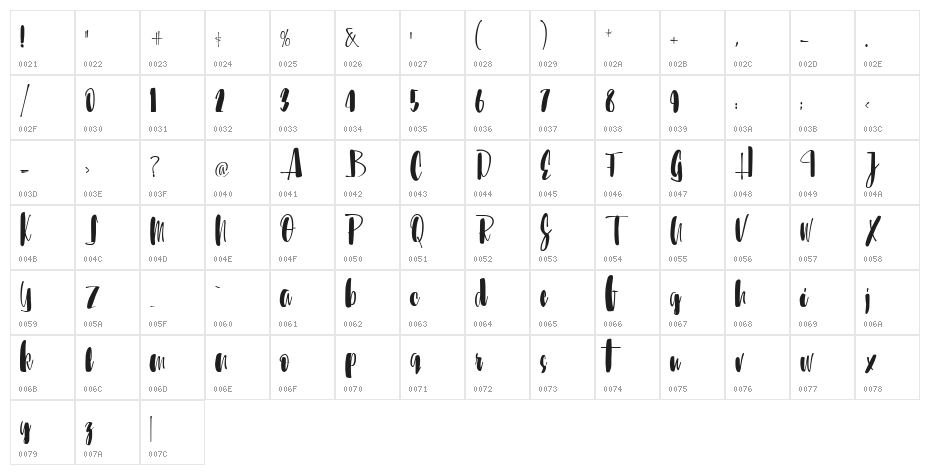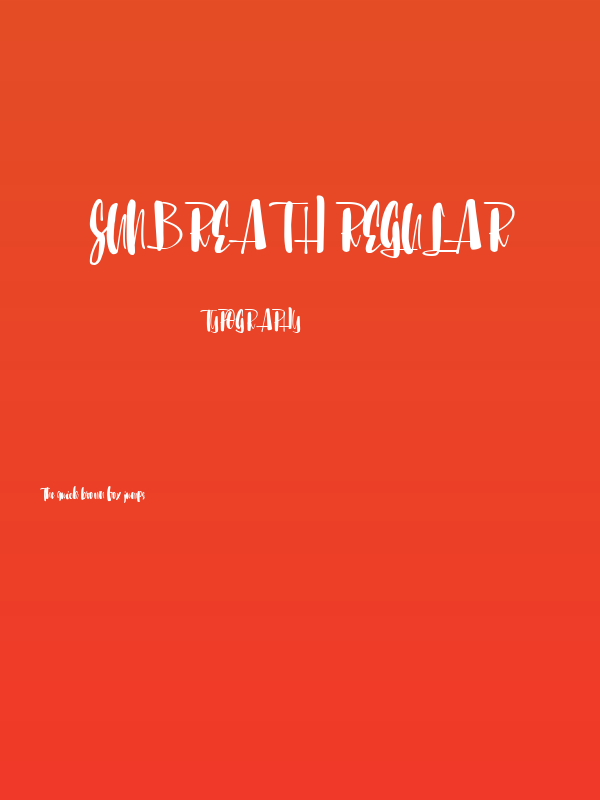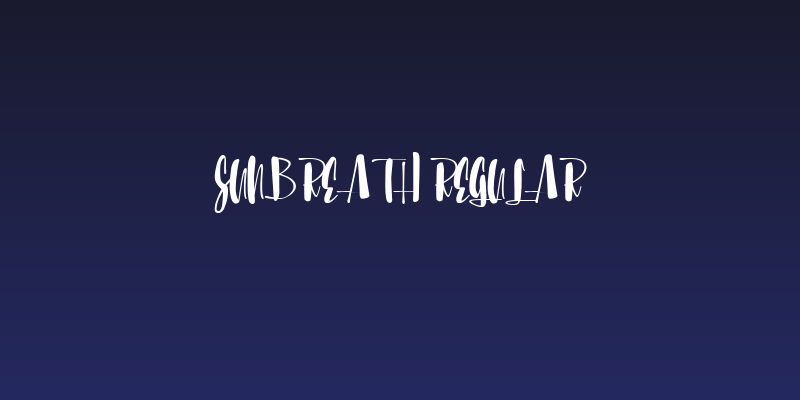
Sunbreath Regular Font
Sunbreath Regular Description
This font features a bold and expressive script style with a modern flair. The characters are fluid and dynamic, showcasing a hand-drawn aesthetic that adds a personal touch to any design. The uppercase letters are tall and striking, while the lowercase letters maintain a consistent flow, enhancing readability. Numbers and special characters are crafted with the same attention to detail, ensuring a cohesive look across all text elements. The overall appearance is both artistic and approachable, making it suitable for a variety of creative applications.